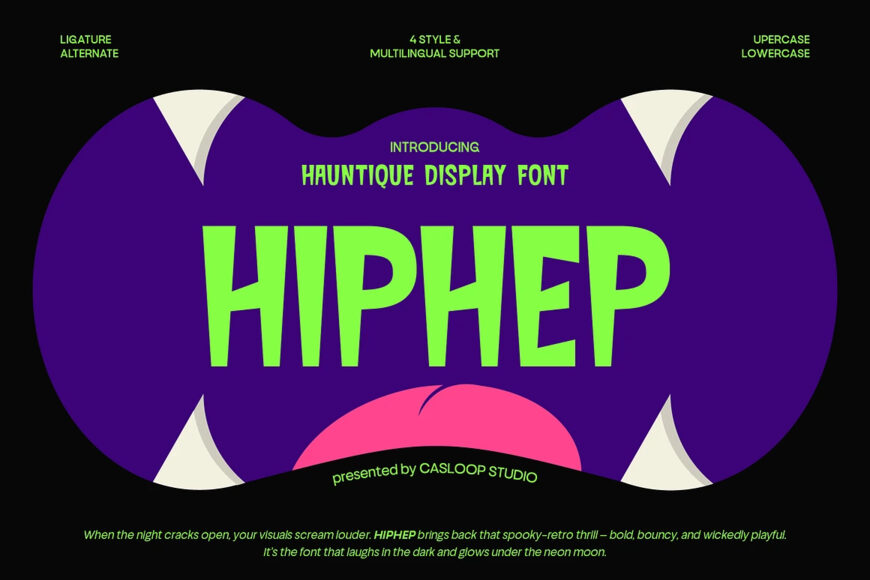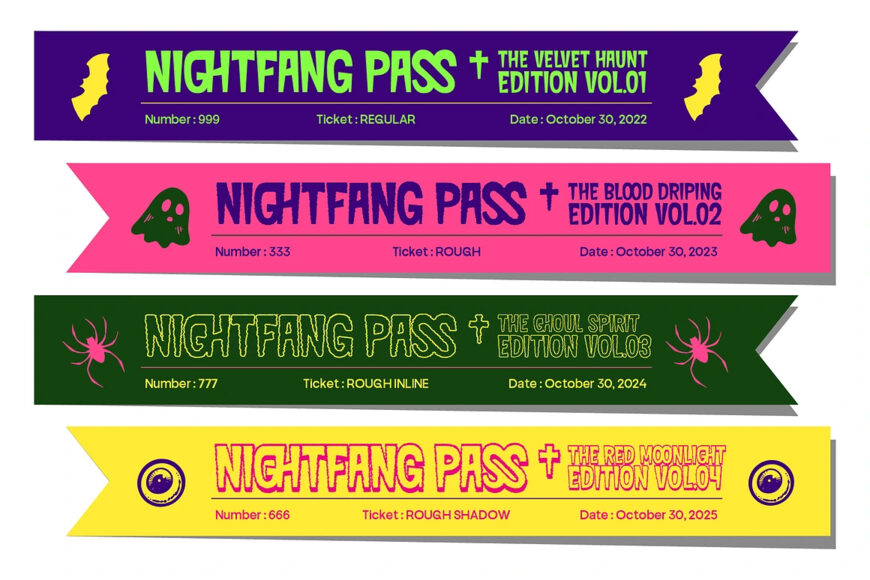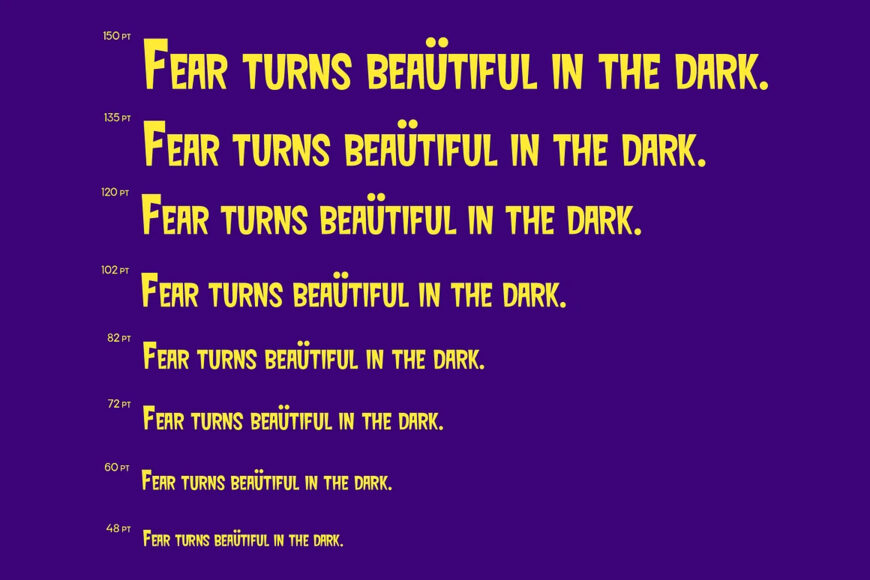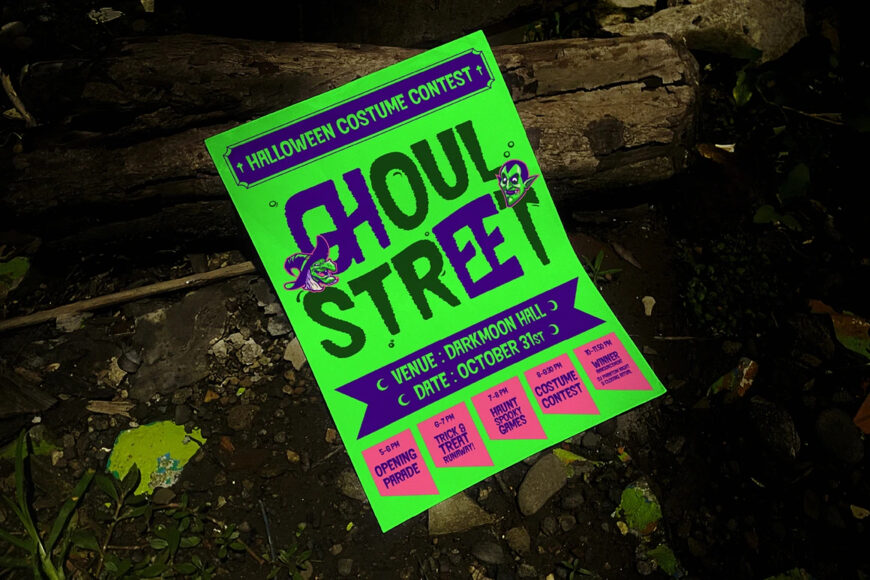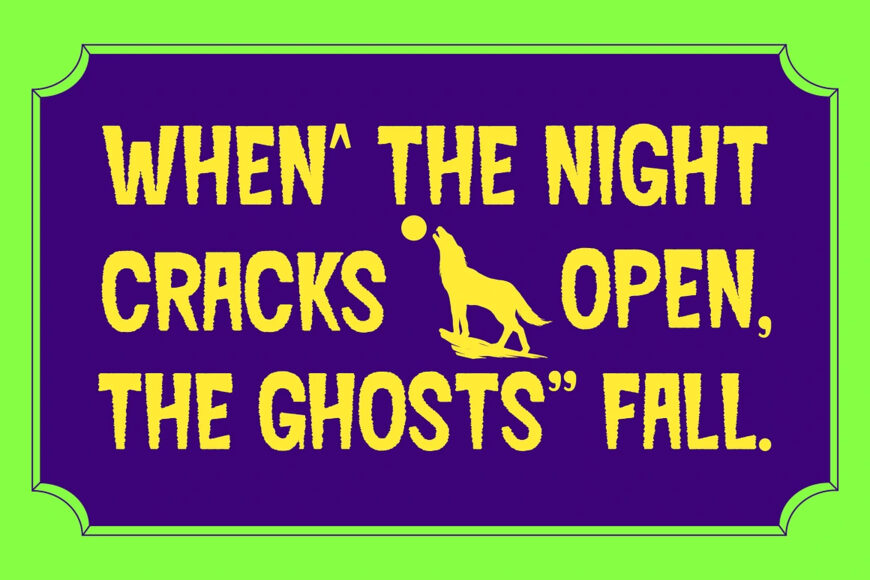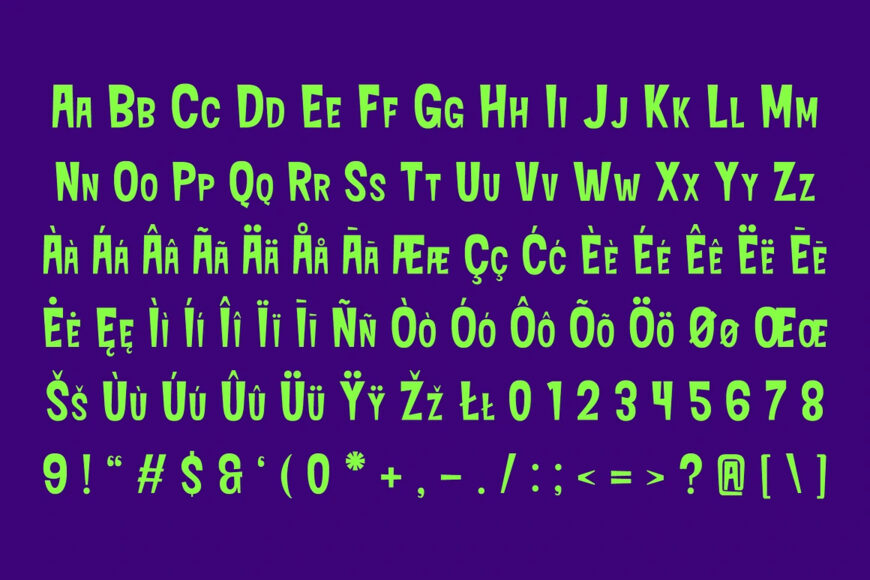
HipHep is a bold haunted display font packed with spooky charm and playful monster energy. Rough textures, expressive angles, and quirky imperfections give every letter a lively, mischievous personality. Its thick, experimental style is creepy without losing its fun edge, making it perfect for Halloween branding, horror titles, trick-or-treat packaging, eerie event posters, indie fashion, haunted cafés, merchandise, and music visuals that need a distinctive dose of character.
4 styles included:
- Haunted – spooky yet cute, like a mischievous ghost
- Bold – thick, expressive, and made to stand out
- Rough – textured edges that feel hand-torn and alive
- Playful – a fun take on fear, perfect for cheeky horror themes